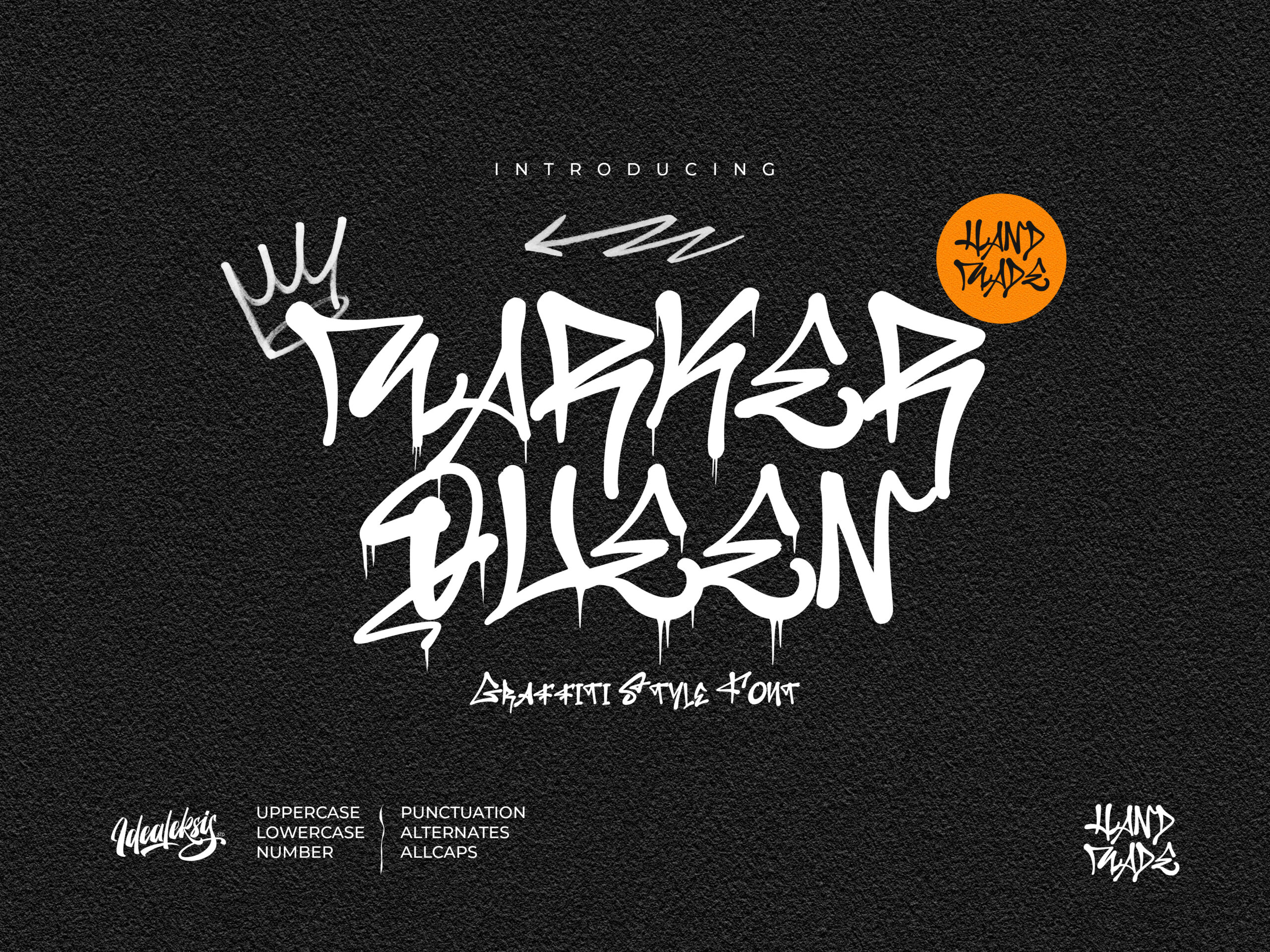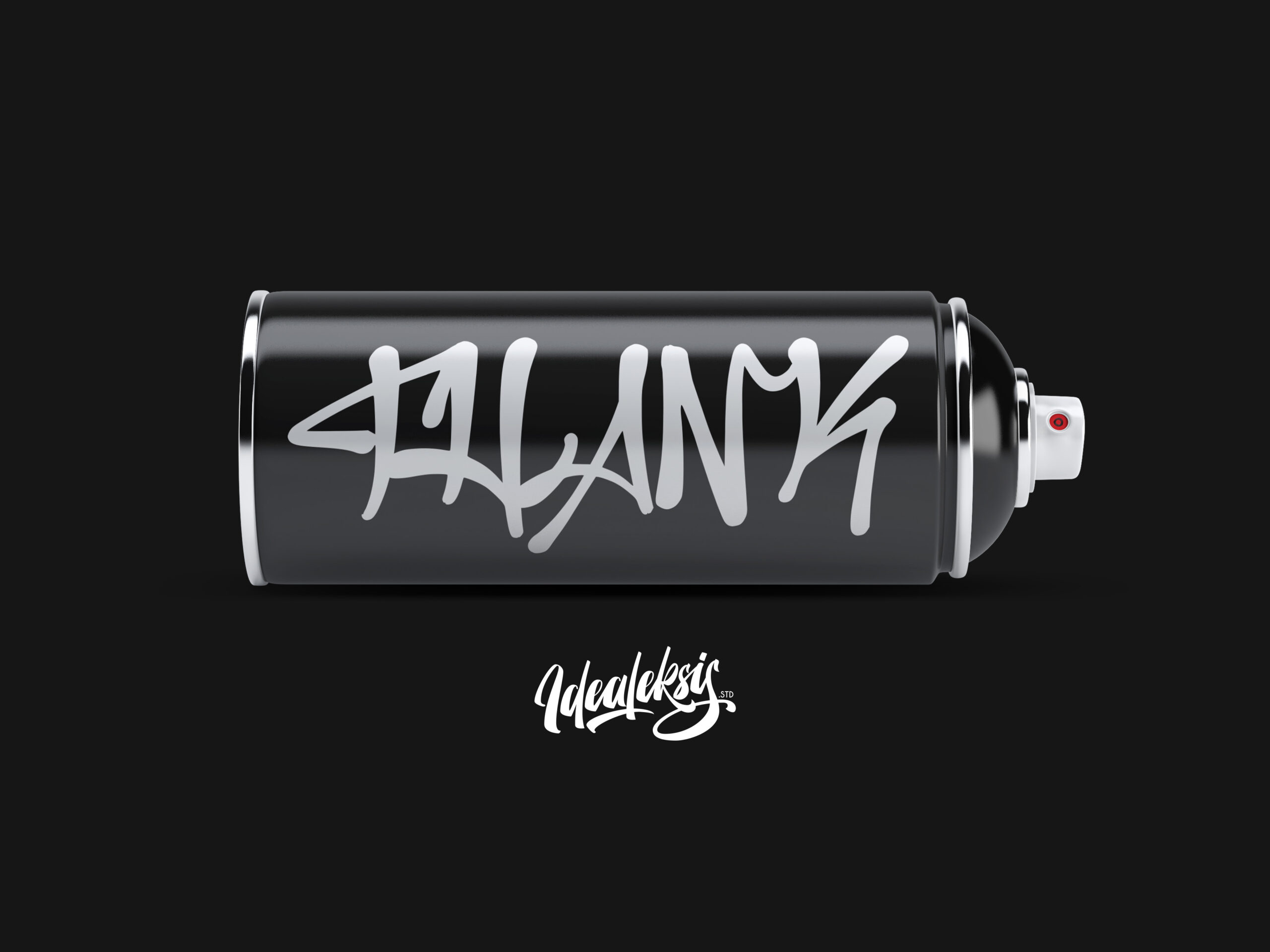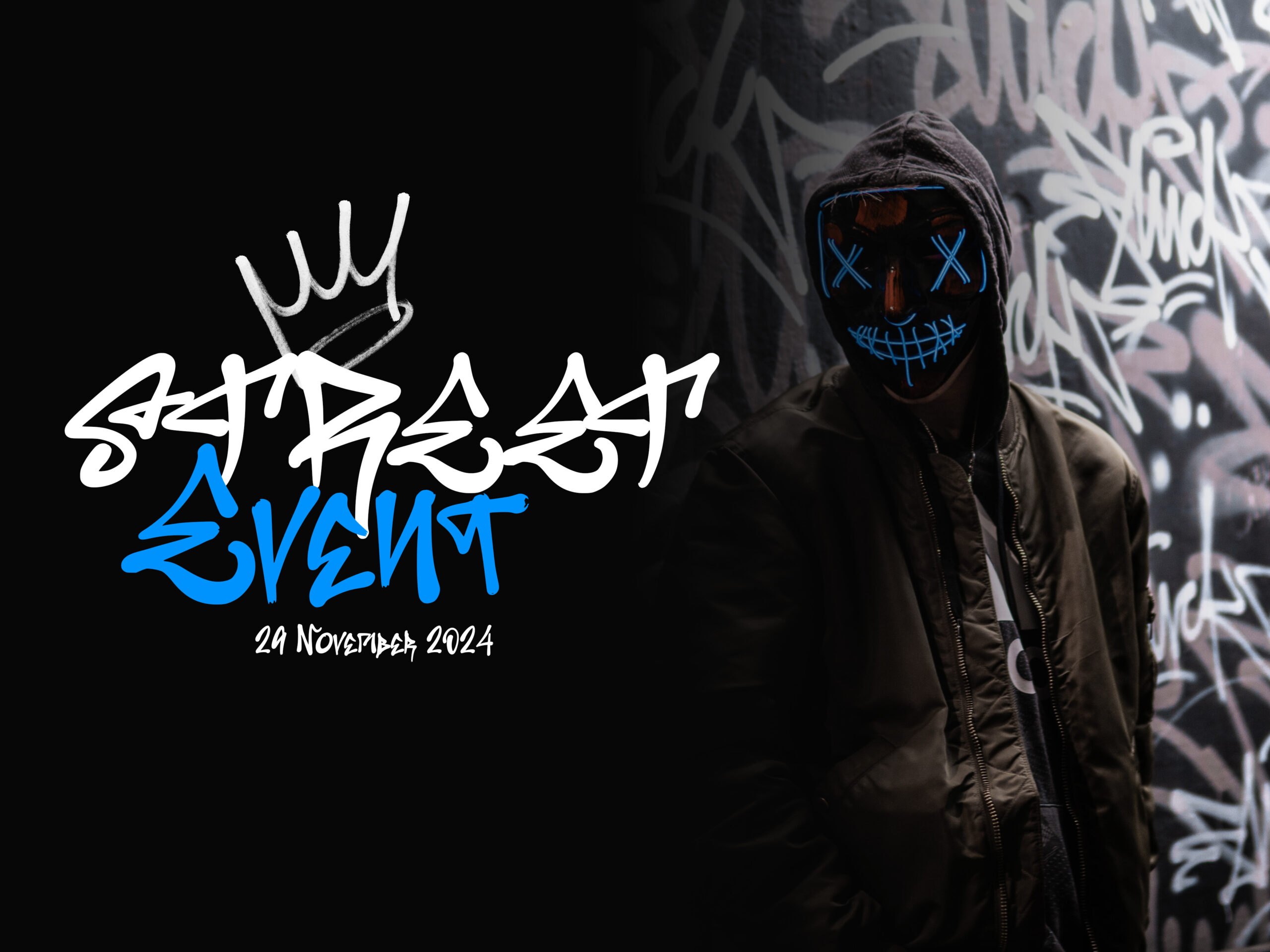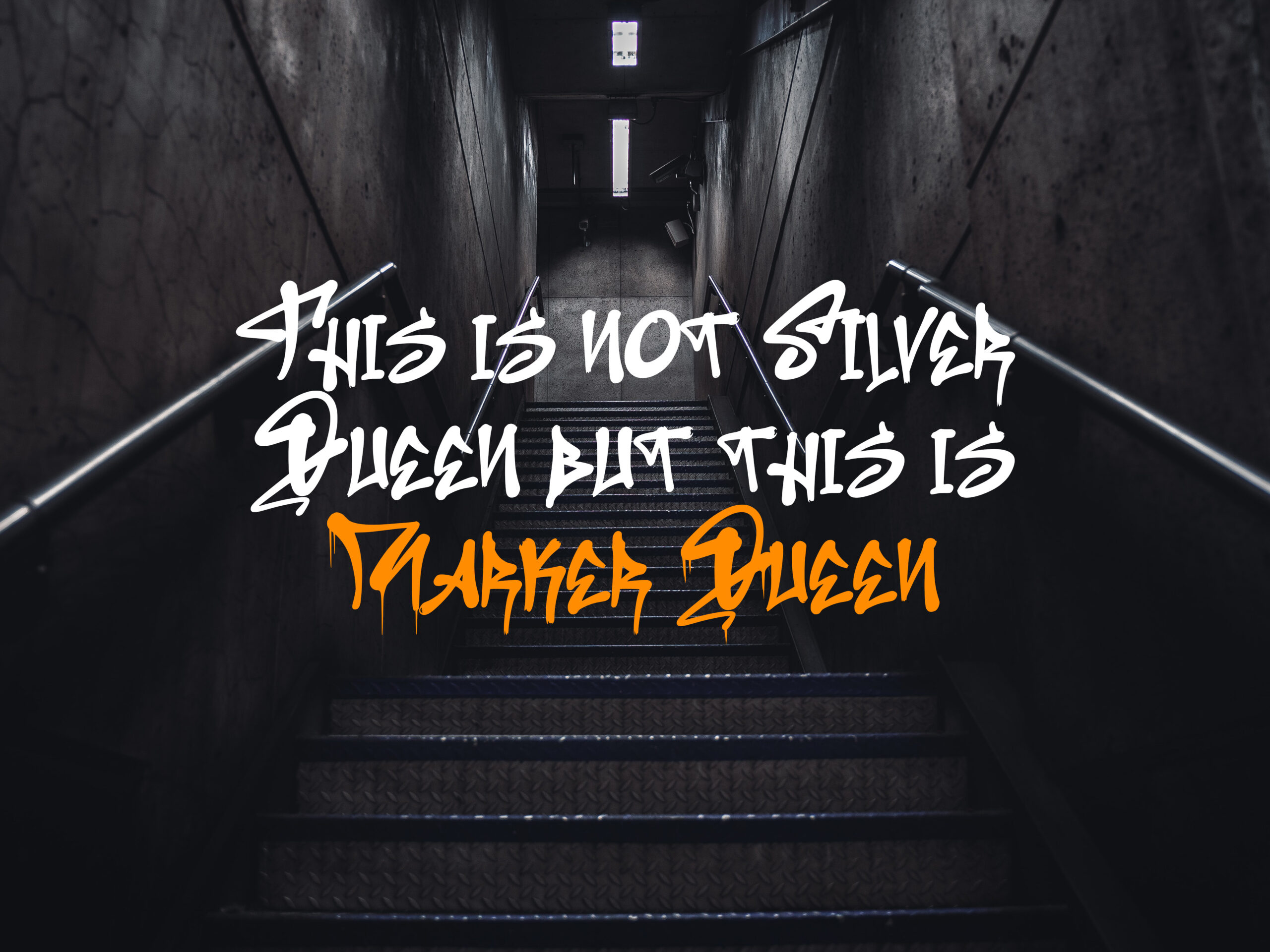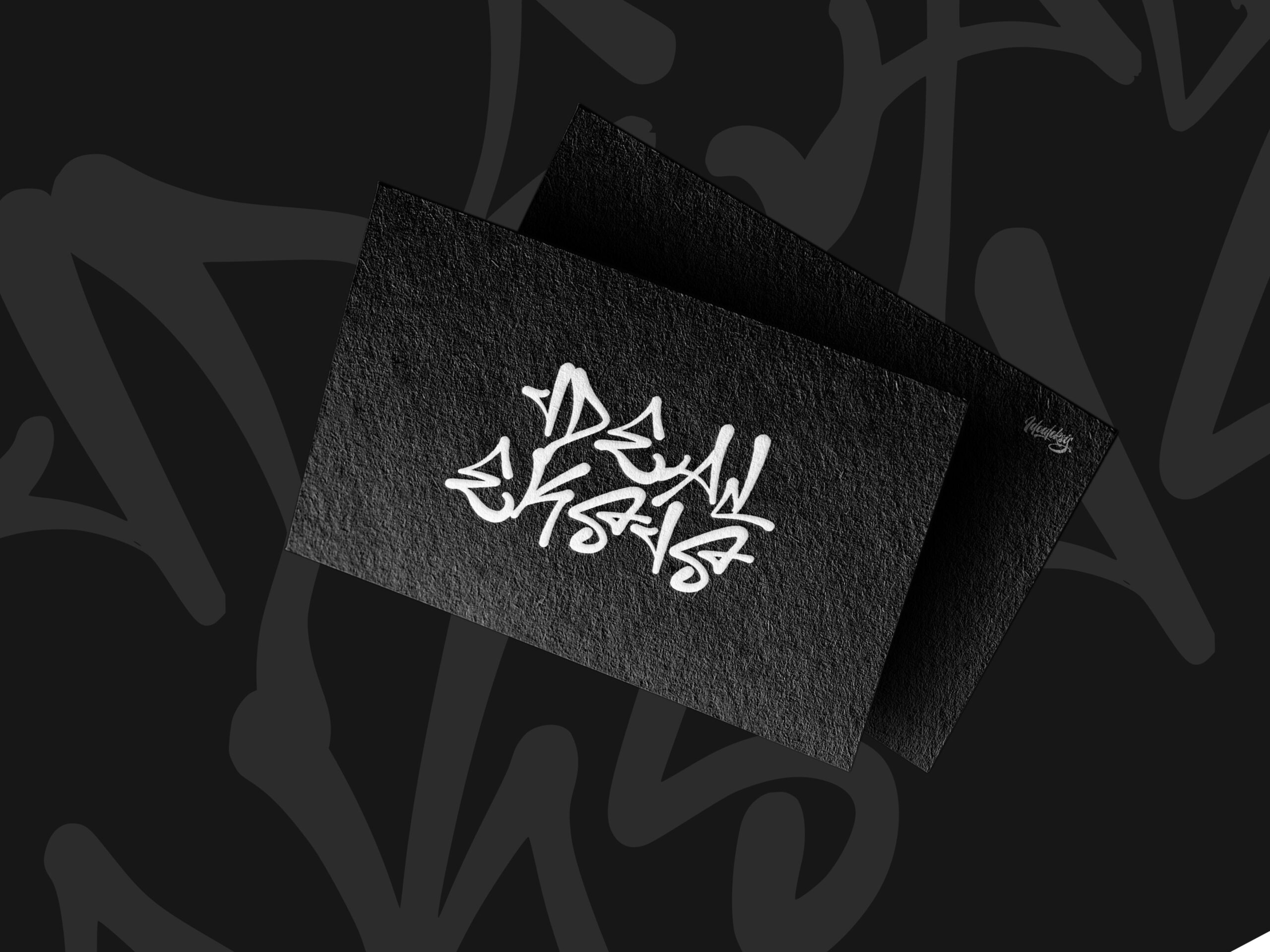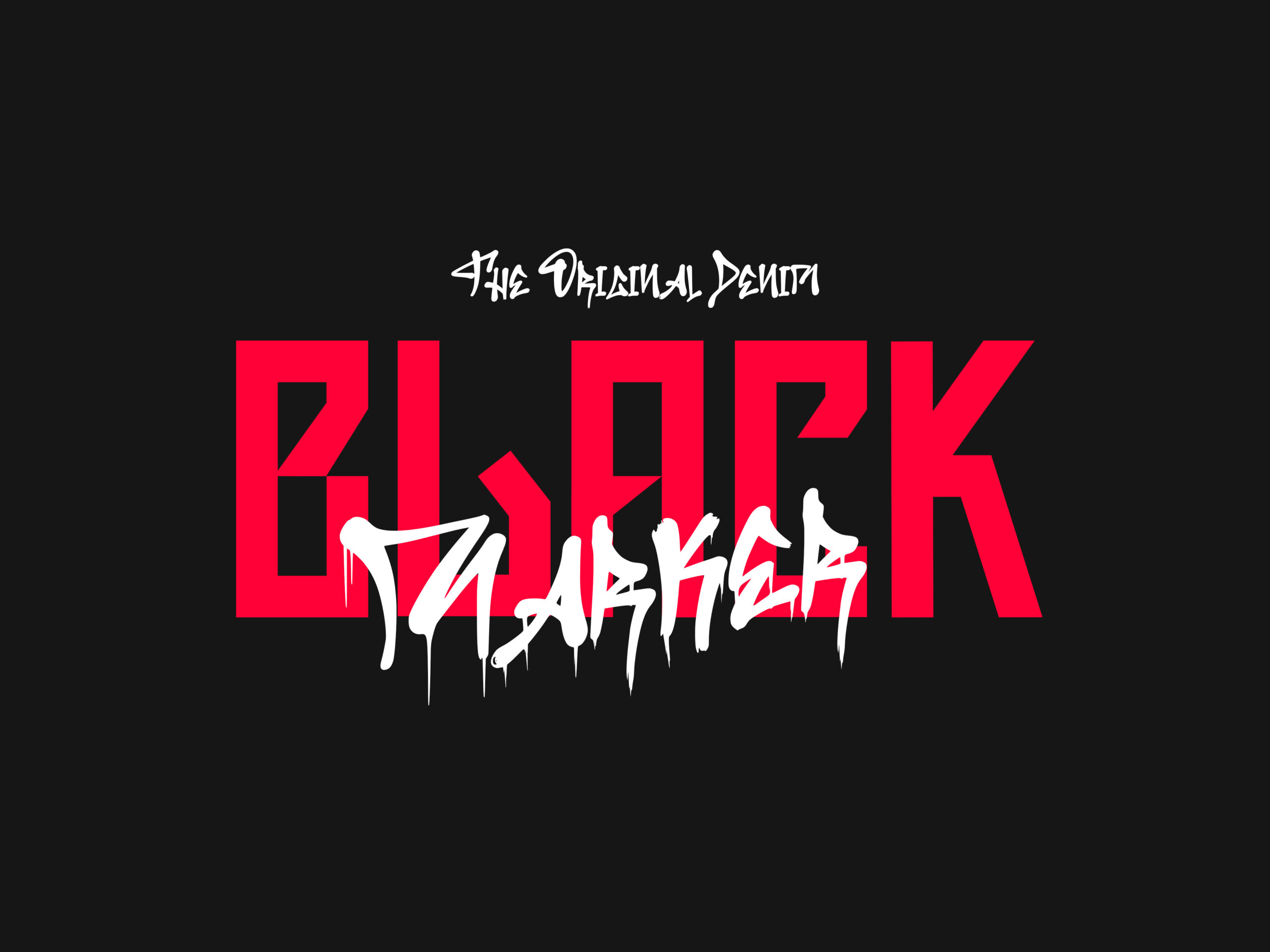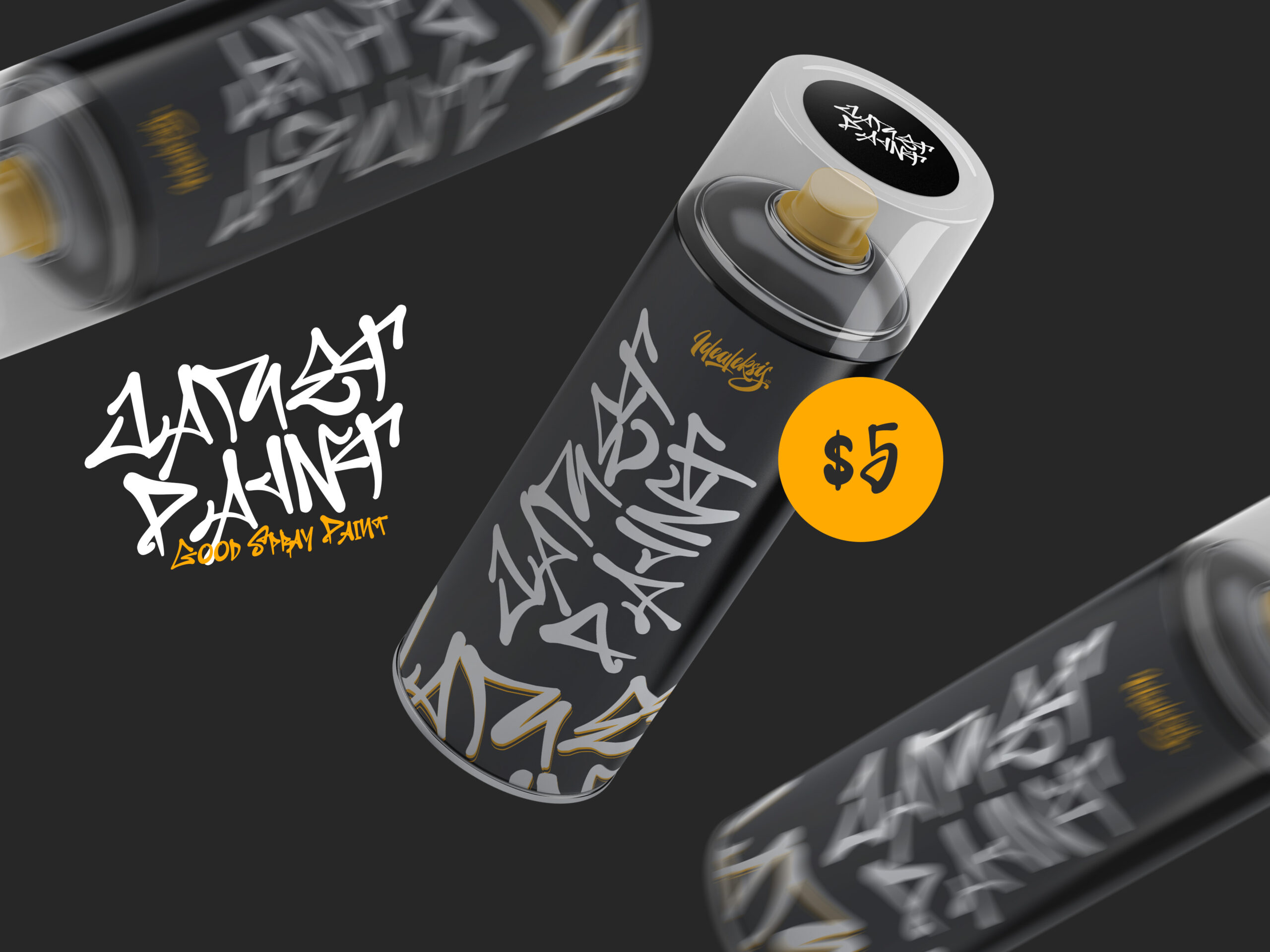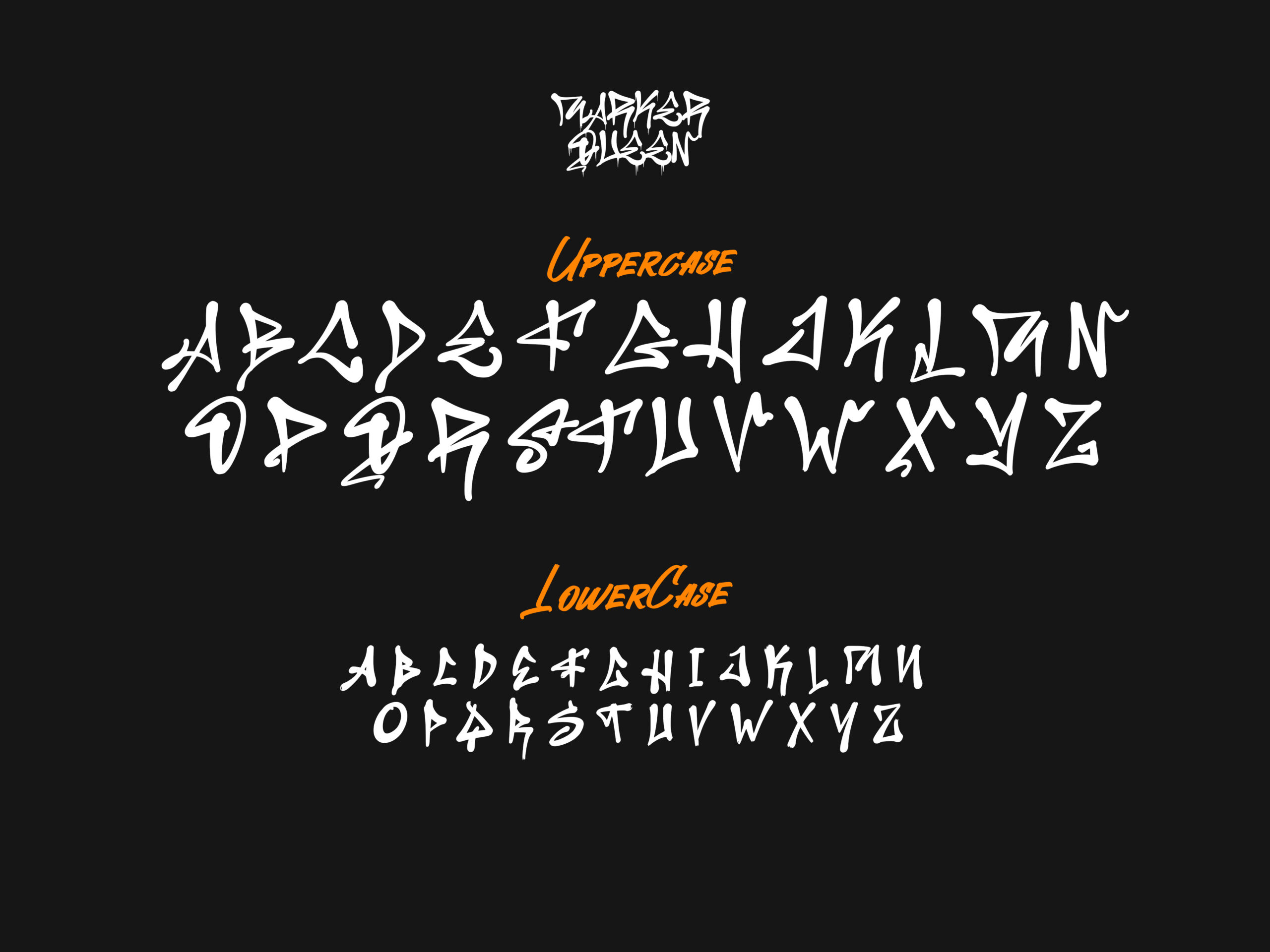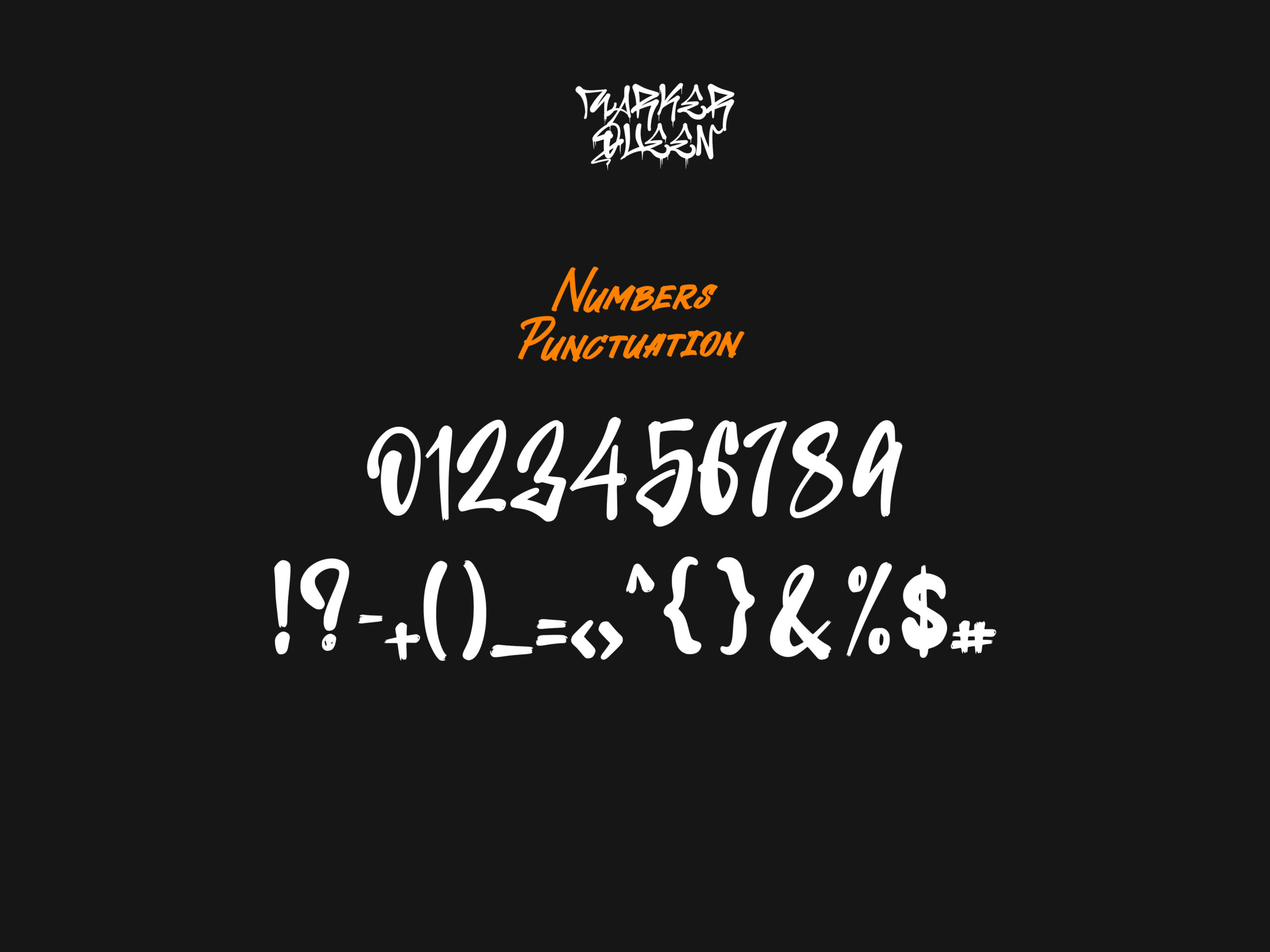
Marker Queen
Marker Queen is a vibrant and dynamic font that captures the spirit of graffiti artistry. This font is specifically designed to bring the raw, urban energy of street art into your design projects, making it an ideal choice for flyers, posters, and various creative endeavors. I hope this font can make your project better! Feature Uppercase Lowercase Number&Punctuation